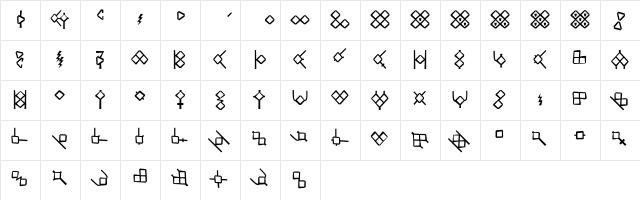
HSRunesAlethic Regular
Design Context for HSRunesAlethic Typeface
HSRunesAlethic is a composed and adaptable typeface that performs quietly and consistently across a wide range of design contexts.